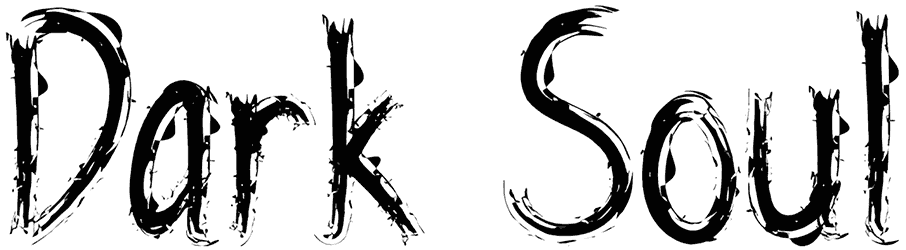
Premium Dark Soul Font
If you are one of those people who are into hair-raising and ominous designs, this can cheer you up. This horror font, which is named Premium Dark Soul, has a brush lettering style and a chilling vibe. Your designs, from flyers to weird illustrations, will be shocking with Premium Dark Soul.